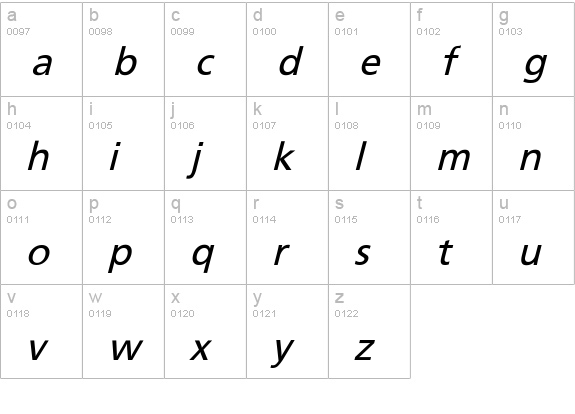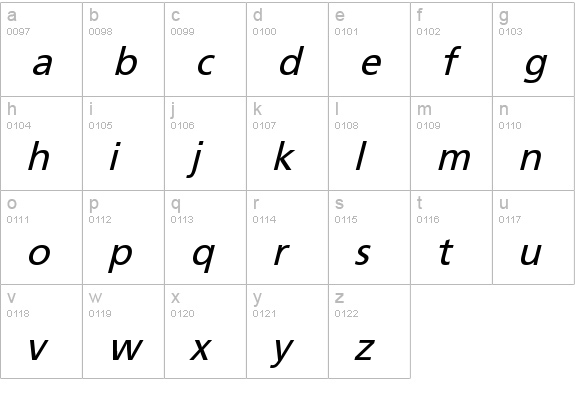
SchranerObl-Nor Font Details
Introducing SchranerObl-Nor, a stunning font that combines elegance and sophistication with a touch of modernity. This unique typeface is perfect for creating eye-catching designs that demand attention. With its clean lines and smooth curves, SchranerObl-Nor exudes a sense of professionalism and refinement. Whether you're designing a logo, a website, or a marketing campaign, this font will effortlessly elevate your project to the next level. One of the best features of SchranerObl-Nor is that it is free to download. Yes, you read that right! This amazing font is freely available at FontsMarket.com, ensuring that you can access its beauty without any cost. Now, you can enhance your designs without breaking the bank. SchranerObl-Nor is versatile and adaptable, making it suitable for a wide range of applications. From branding materials to social media graphics, this font will lend a touch of sophistication to any project. Its legibility and readability ensure that your message is conveyed effectively, while its unique style sets it apart from the crowd. Whether you're a professional designer or a creative enthusiast, SchranerObl-Nor is a must-have addition to your font collection. Its timeless appeal and freely available download make it an irresistible choice for anyone looking to add a touch of elegance to their designs. Don't miss out on the opportunity to elevate your creations with SchranerObl-Nor. Visit FontsMarket.com today and download this stunning font for free. Unleash your creativity and let SchranerObl-Nor take your designs to new heights.